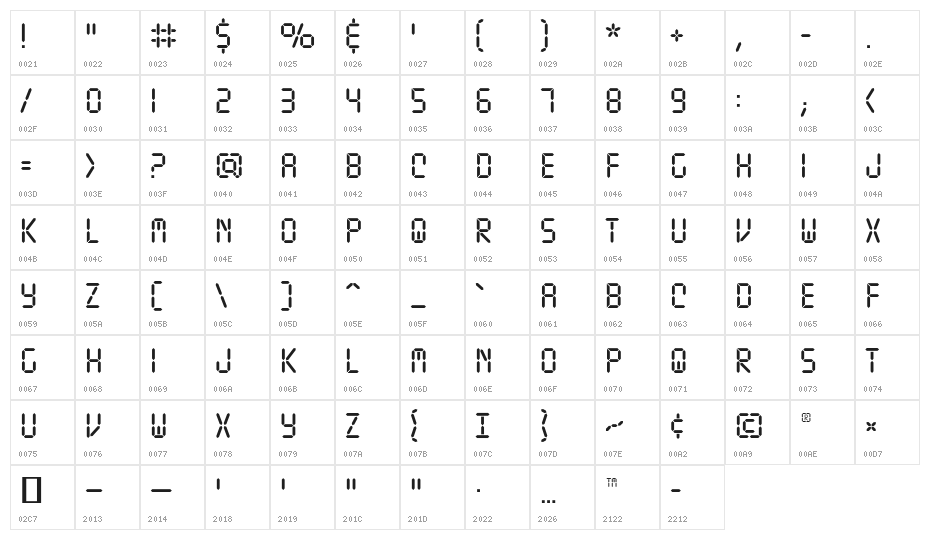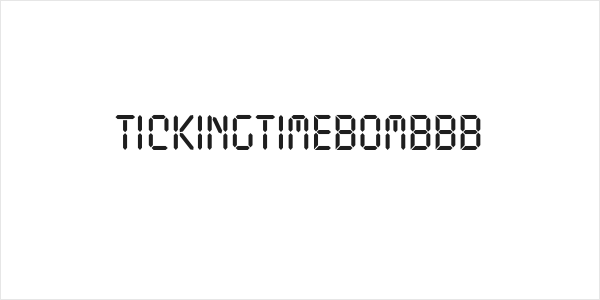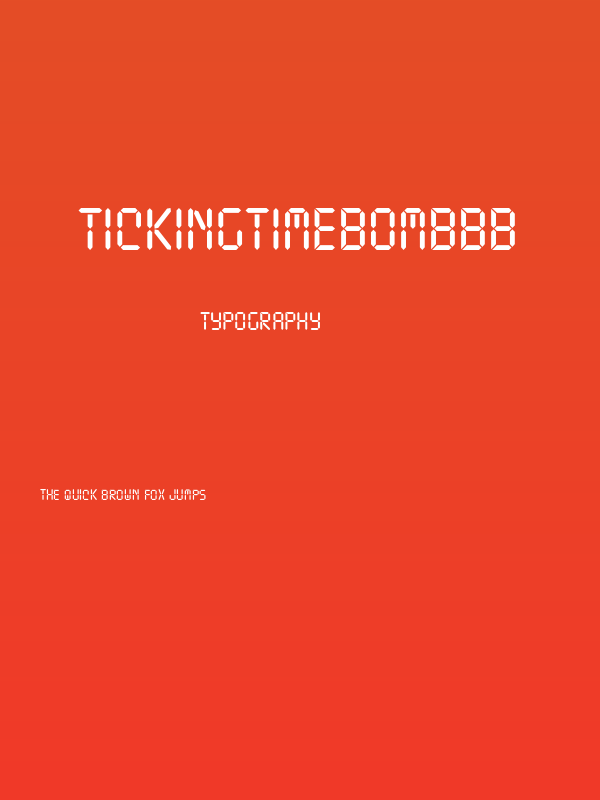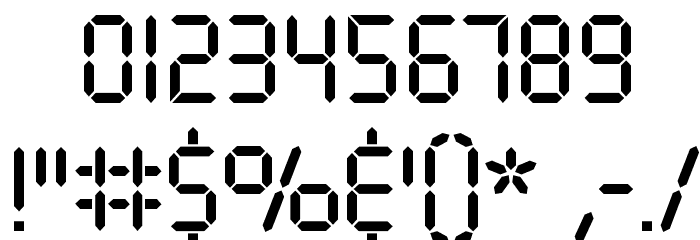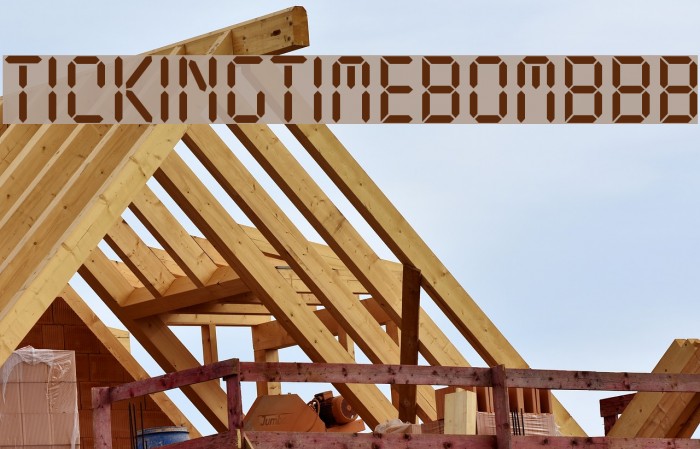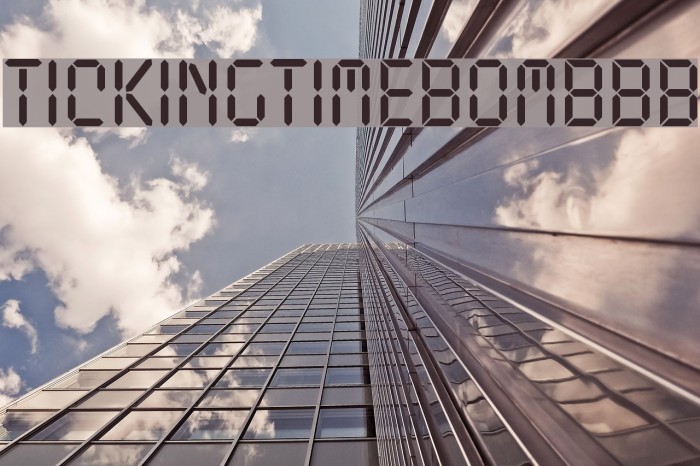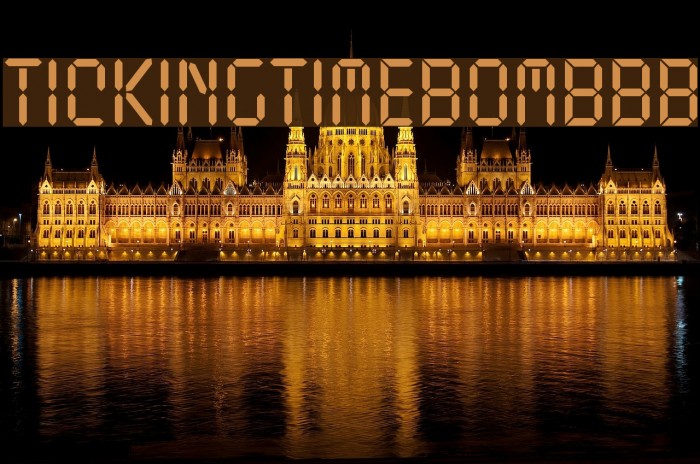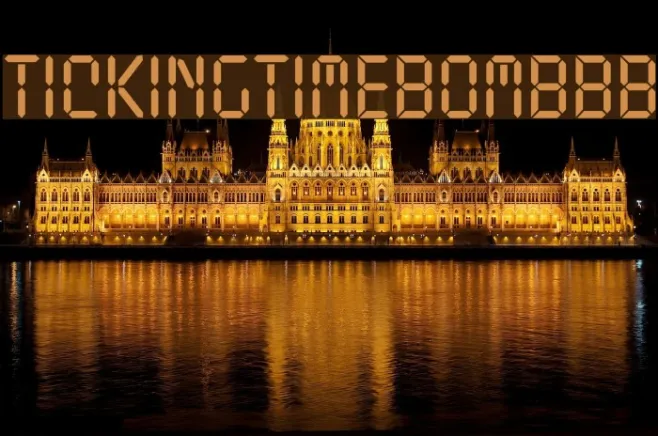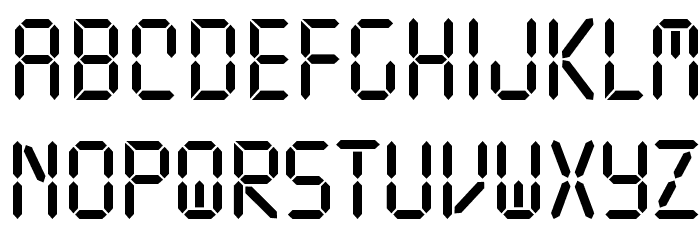
TickingTimebombBB Font
TickingTimebombBB Description
This font features a digital, segmented style reminiscent of old-school digital clocks and displays. Each character is constructed from a series of straight lines and angles, creating a geometric and mechanical appearance. The uppercase and lowercase letters maintain a consistent height, contributing to a uniform look. Numbers and special characters follow the same segmented design, enhancing the cohesive digital theme. The font's distinct style makes it ideal for projects that require a technological or futuristic aesthetic, such as digital interfaces, tech-themed posters, or retro-inspired designs.
| Proposed Projects | Ideal for digital interfaces, tech-themed posters, retro designs, and futuristic branding. |